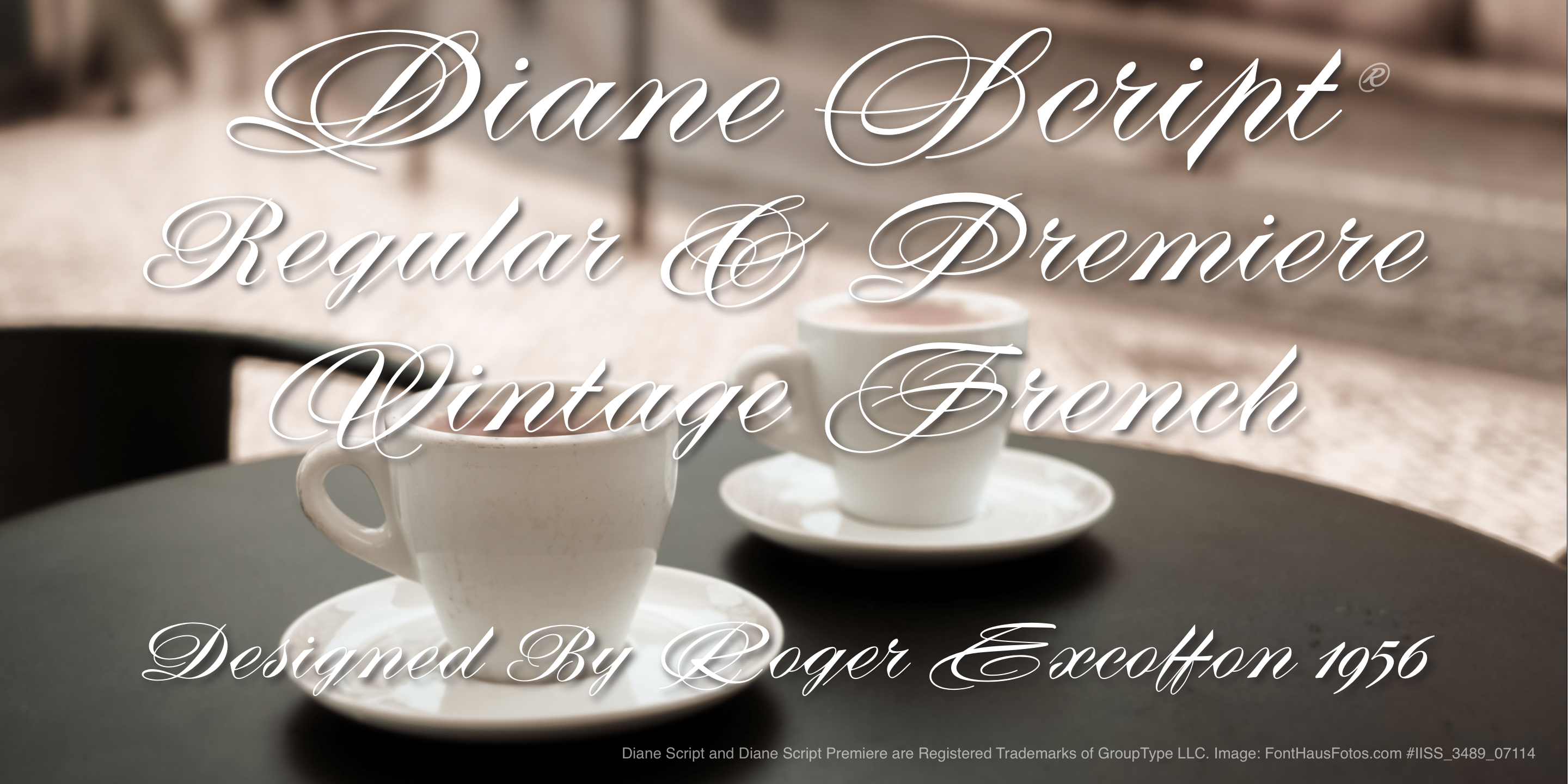
Diane Script Premiere (1 font)
From GroupType
Thirteen years later, FontHaus came across another little-known typeface treasure: Diane. Designed by the legendary French designer Roger Excoffon in 1956, this remarkable script has never been faithfully recreated until now. In close collaboration with Mark Simonson, FontHaus and Mr. Simonson painstakingly researched rare type books, publications, European metal type services, and period showings from the United States, England, Germany and from the University of Groningen in the Netherlands. Finding full specimens of the font turned out to be quite a challenge. In most cases, only the caps and lowercase were shown. Furthermore, the more we researched Diane, many curious facts came to light. The caps in earlier specimens of Diane are completely different from specimens published later, suggesting that the face was redesigned at some point, perhaps in the mid-1960s. So we are left with two different sets of caps. The original had very elaborate, swirly strokes, very characteristic of Excoffon¹s gestural designs for posters and logos. Later on, these appear to have been replaced by a set of simpler, more traditional script caps. The original caps are criticized in one source Mark found (Practical Handbook on Display Typefaces, 1959) as being “exquisite” but “not highly legible”. Perhaps this is what led to the simpler caps being introduced. Nevertheless, FontHaus’s release includes not only both sets of caps, but a range of alternates and a number of new characters not originally available such as the Euro, and a magnificent alternate Ampersand to name a few.
NOTE: The key difference between Diane Script and Diane Script Premier is that the Premier's caps are more elaborate, decorative, and elegant.